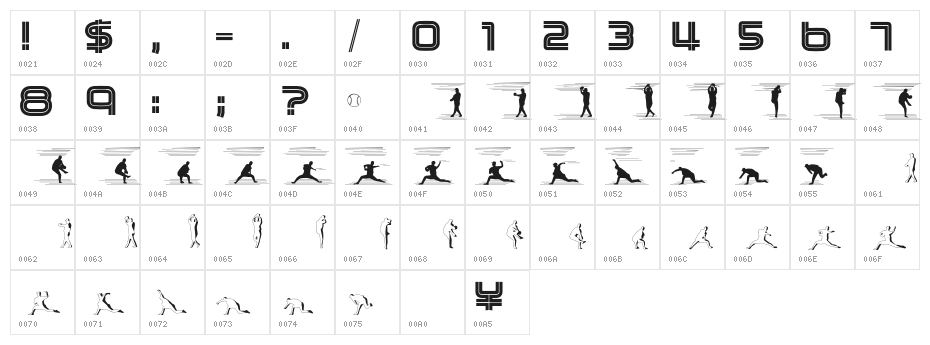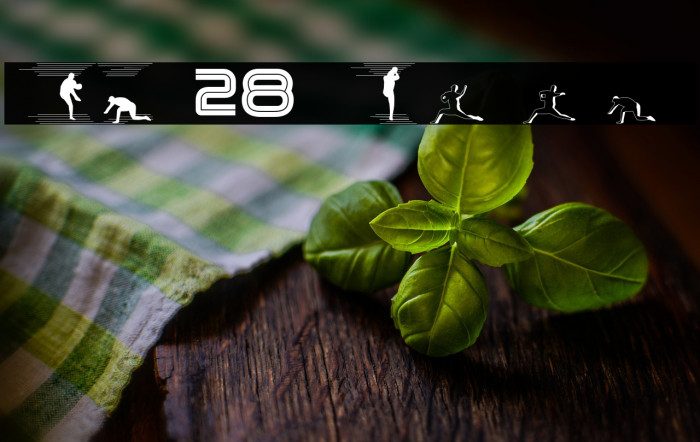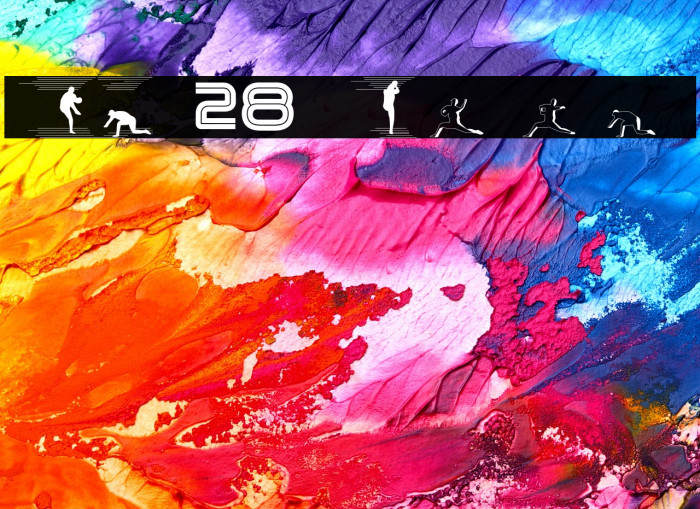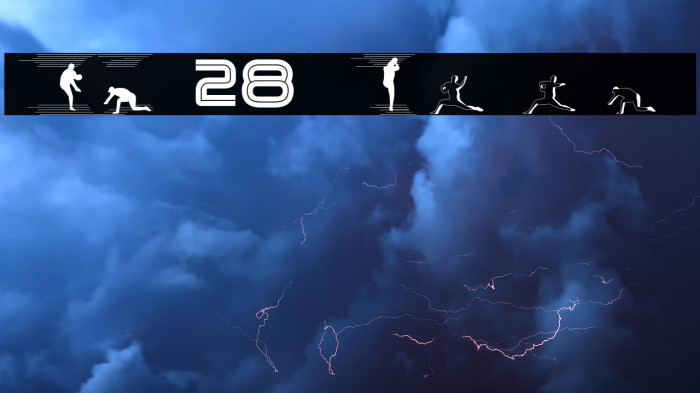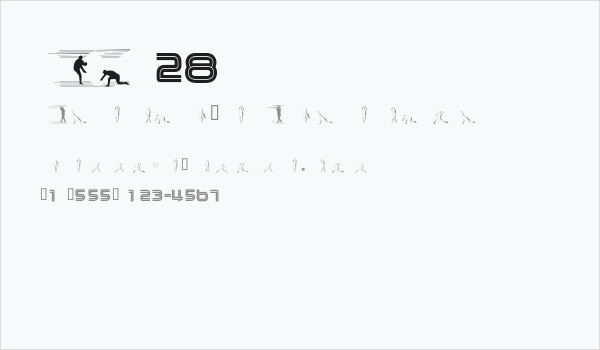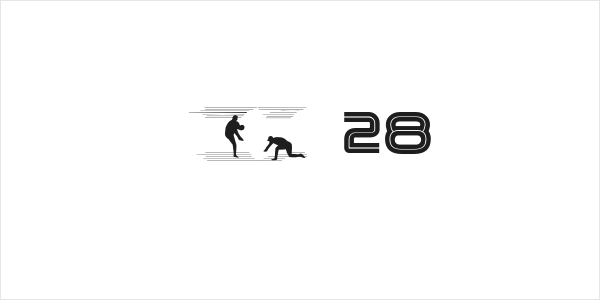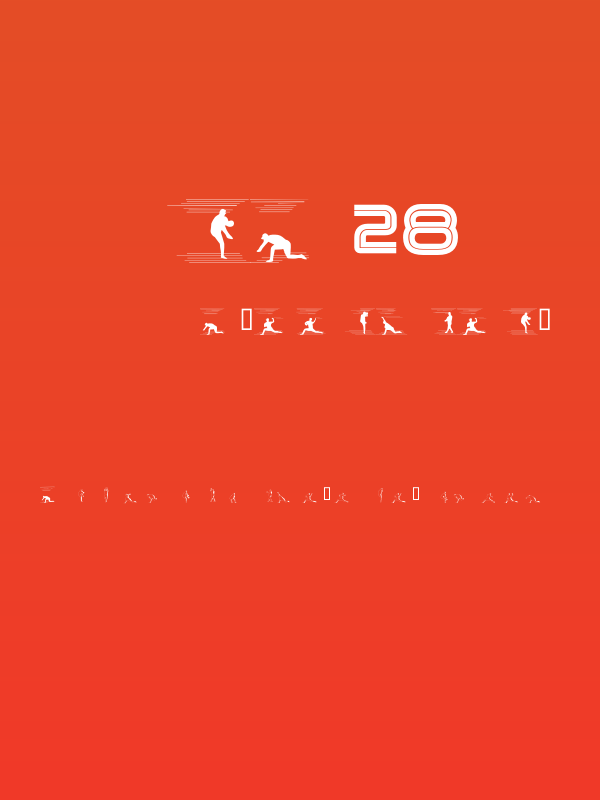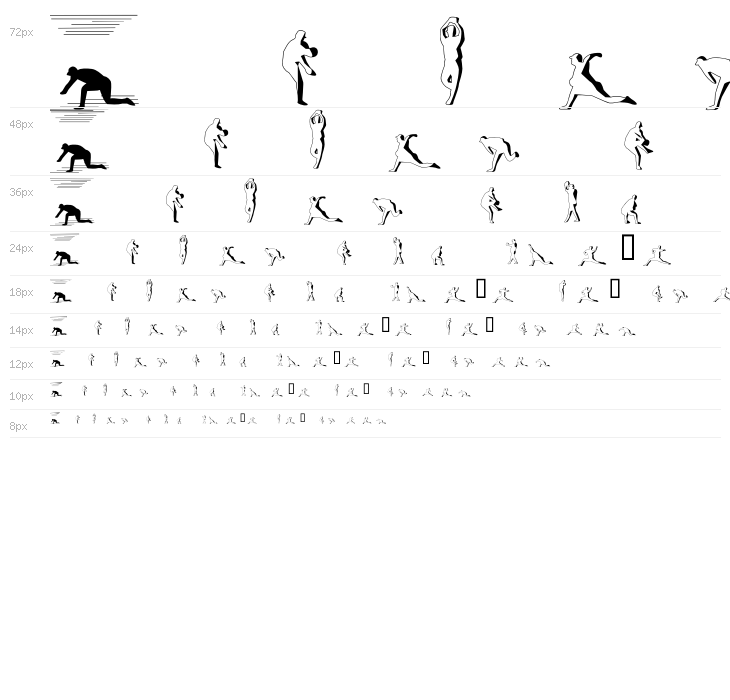
HT28 Font
HT28 Description
This design features a unique and creative approach, incorporating dynamic human silhouettes in various athletic poses. Each character is represented by a figure in motion, capturing a sense of energy and movement. The design is highly stylized, with a focus on fluidity and form, making it stand out as a decorative element. The numbers and special characters maintain a bold, geometric style, contrasting with the organic shapes of the figures. This combination creates a visually striking and memorable design that is both artistic and functional.